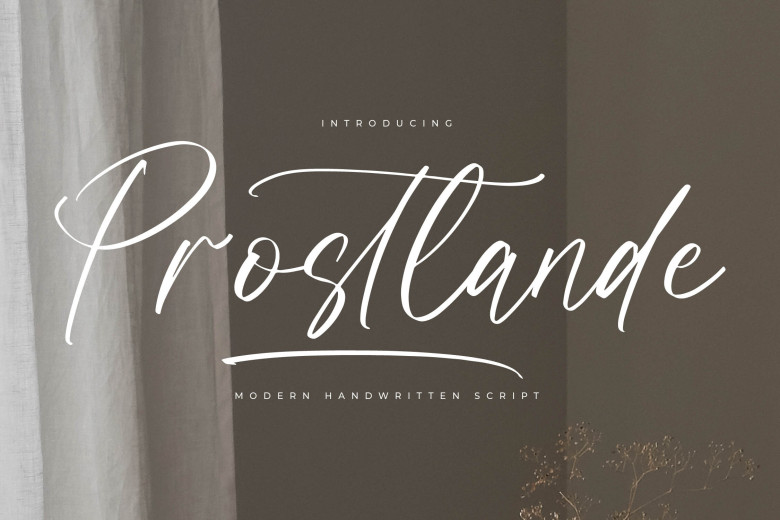
Prostlande Font
Prostlande – Modern Handwritten Script , from Letterena, is a Luxury Script font, suitable for any projects such as: logos, branding projects, homeware designs, product packaging, mugs, quotes, posters, shopping bags, t-shirts, book covers, name card, invitation cards, greeting cards, label, photography, watermark, special events, and all your other luxury and beautiful projects that need a Luxury Script taste.
Prostlande Handwritten Script Font